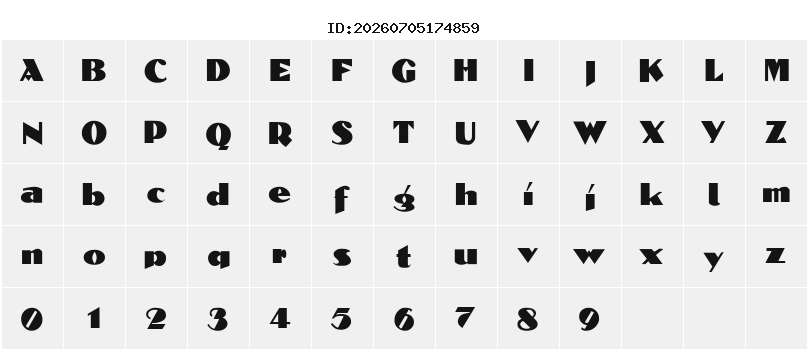
Dolmen Preview
• Font Name: Dolmen
• Font ID: Altsys Fontographer 3.5 Dolmen Regular
• Full Font Name: Dolmen Regular
• Version: Altsys Fontographer 3.5 10/28/92
• PostScript Name: Dolmen
• Character Count: 102
About Dolmen.ttf
Dolmen.ttf is a modern, elegant sans-serif font designed for ultimate readability and visual harmony. Perfect for branding, headlines, web design, and print materials.